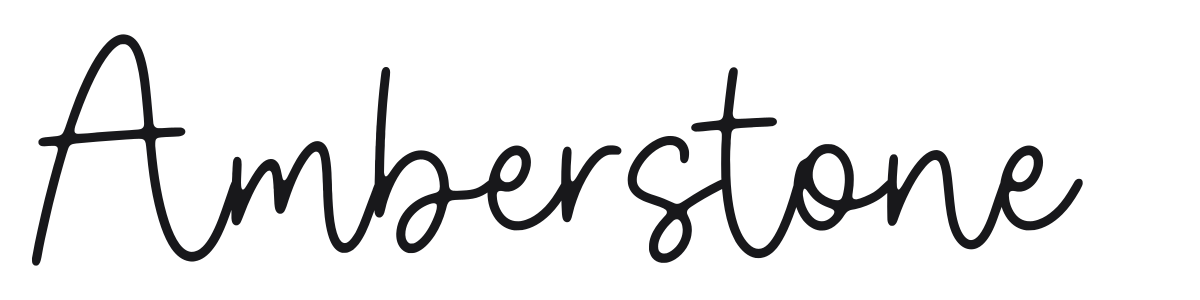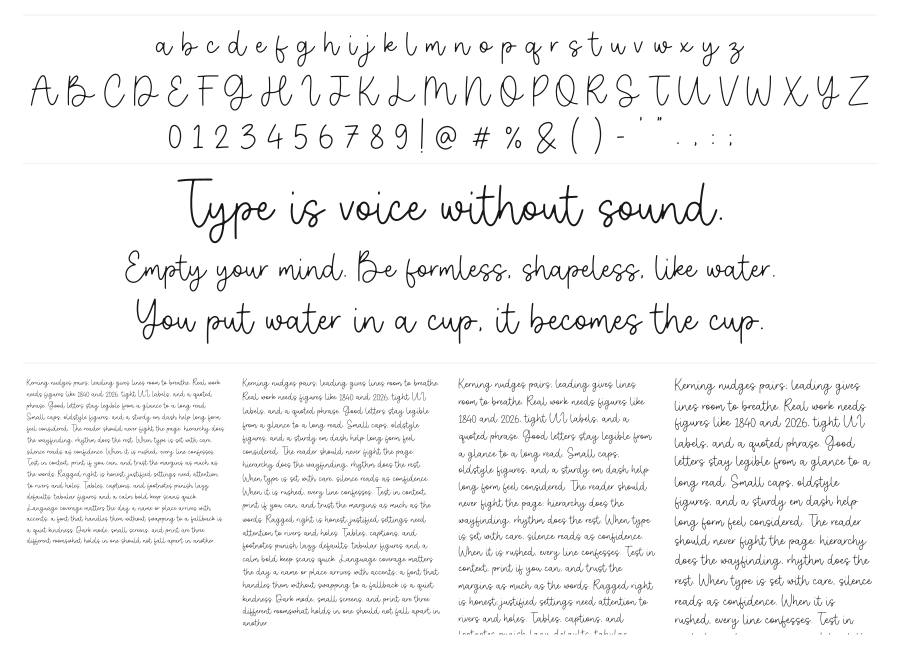
Amberstone
Amberstone is a casual monoline script with the relaxed, flowing quality of natural handwriting. The continuous connections and gently bouncing baseline give it warmth without veering into formal calligraphy territory. It works well for branding, packaging, and any project that needs a personal, approachable touch.